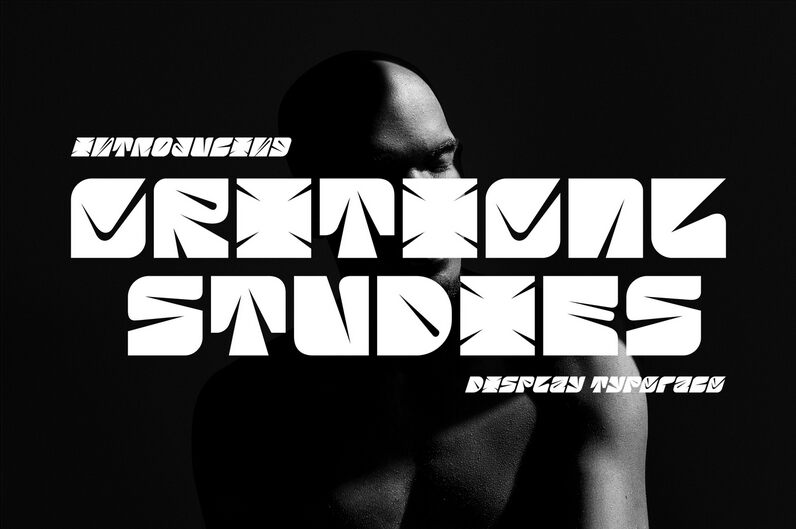
CRITICAL STUDIES DEMO Regular
Critical Studies font is a display groovy typeface created by 177Studio. This expanded, bold retro serif evokes the iconic style of the yesteryears and adds a feel of nostalgia to any project. Easily create beautiful words to have professional results with this decorative display font. A typeface that can't be missed in your design collection!